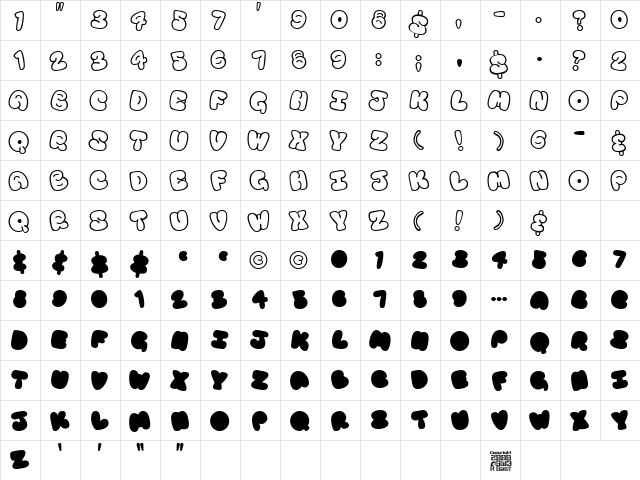
Tourist Trap Regular
| Foundry | GreyWolf WebWorks |
| Designer | Rich Gast |
Design Context for Tourist Trap Typeface
Tourist Trap is a composed and adaptable typeface that performs quietly and consistently across a wide range of design contexts.